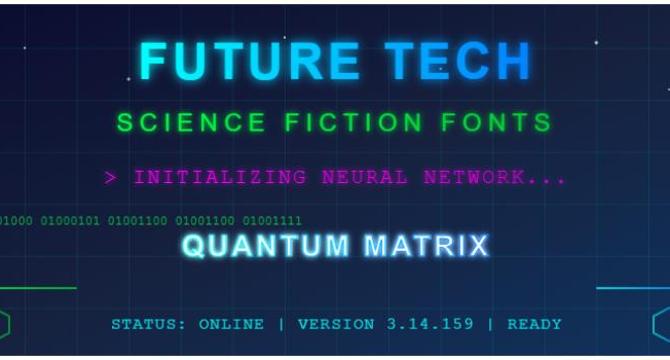
Science fiction fonts play a crucial role in bringing futuristic concepts to life for movie posters, book covers, and video game interfaces.Tech-inspired, military, industrial, and alien fonts are essential categories in the world of free science fiction fonts.Design considerations emphasize readability, color choices, spacing, and layout when using sci-fi typography.Some examples of free science fiction fonts include Transformers, Orion, Space, Ethnocentric, and many more.